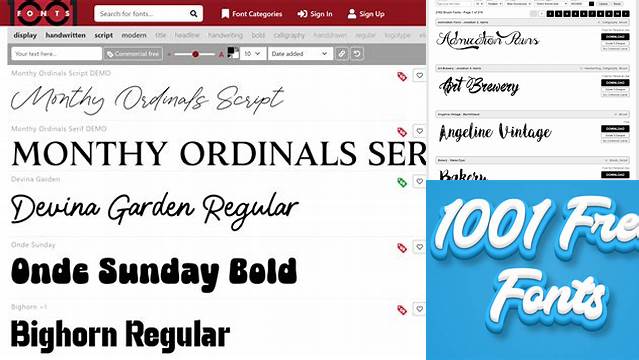
1001 Fonts Vs DaFont: Which Font Site Is Best?
Hey guys! Ever found yourself in a creative rut, staring blankly at your screen, desperately searching for that perfect font? We've all been there. Typography is crucial in design, whether you're crafting a stunning website, designing eye-catching marketing materials, or just making your social media posts pop. Choosing the right font can make all the difference, conveying the right mood, tone, and message. That's why having access to a vast library of fonts is a game-changer for any designer or creative. Two names that often come up in the free font universe are 1001 Fonts and DaFont. Both are treasure troves of typefaces, but which one reigns supreme? Let's dive in and explore these platforms, comparing their strengths, weaknesses, and overall user experience to help you find your next font obsession.
What are 1001 Fonts and DaFont?
Before we get into the nitty-gritty, let's take a quick look at what 1001 Fonts and DaFont actually are. Think of them as giant online libraries dedicated to fonts. 1001 Fonts, as the name suggests, boasts a massive collection of typefaces, ranging from classic serifs and sans-serifs to playful display fonts and handwritten scripts. They aim to be a comprehensive resource for designers of all levels, offering both free and commercial fonts. DaFont, on the other hand, is a long-standing favorite in the design community, known for its extensive selection of user-submitted fonts. This means you'll find a wider variety of quirky, unique, and sometimes downright bizarre fonts that you might not find anywhere else. Both platforms operate on a freemium model, offering a large selection of fonts for free, often with options to purchase commercial licenses for certain fonts or families. The interface of both sites is designed to be fairly straightforward, with search and filter options to help you navigate the vast collection. However, the sheer volume of fonts can sometimes feel overwhelming, so knowing how to effectively use their search tools is key. It's like walking into a library with millions of books – exciting, but potentially a little daunting!
Navigating the Font Jungle: User Experience
Okay, so both 1001 Fonts and DaFont have a ton of fonts. Great! But how easy are they to actually use? This is where user experience (UX) comes into play. A well-designed website can make all the difference in how smoothly you find what you're looking for. Let's break down the UX of each platform. 1001 Fonts generally has a cleaner and more modern interface. The search bar is prominently displayed, and the font categories are clearly organized. You can easily filter fonts by style, weight, width, and even specific features like rounded corners or fixed width. This granular filtering is a huge help when you have a specific vision in mind. They also offer a handy preview tool that lets you type in your own text to see how the font will look in action. DaFont, while being a classic, has a slightly more dated interface. It's functional, but it can feel a little cluttered and overwhelming at first glance. The categories are listed on the left-hand side, and while they are extensive, the sheer number of options can be a bit dizzying. DaFont's search filters are less refined than 1001 Fonts, making it a bit harder to narrow down your search. However, one thing DaFont does really well is its preview functionality. It allows you to preview your text in various sizes and even customize the background color, which can be super helpful. Ultimately, the best UX is subjective and depends on your personal preferences. If you prefer a clean and modern feel with robust filtering options, 1001 Fonts might be your go-to. If you don't mind a slightly more cluttered interface and prioritize a vast selection with a focus on unique, user-submitted fonts, DaFont might be more your style.
Font Selection: Quantity vs. Quality
Now for the million-dollar question: which platform has the better font selection? This isn't just about quantity; it's about the quality, variety, and licensing options available. Both 1001 Fonts and DaFont boast impressive numbers when it comes to font count. 1001 Fonts prides itself on curating a collection of both free and commercial fonts, aiming for a balance between quantity and quality. You'll find a solid selection of professional-grade fonts, as well as plenty of fun and quirky options. They also offer a good range of language support, which is crucial for international projects. DaFont, with its user-submitted nature, has a massive library, potentially larger than 1001 Fonts. You'll find a wider range of unique and unusual fonts on DaFont, including handwritten scripts, dingbats, and fonts inspired by pop culture. However, the quality can be more variable. Because anyone can upload a font to DaFont, you'll encounter some gems alongside some less polished creations. This isn't necessarily a bad thing; it's part of DaFont's charm. But it does mean you need to be a bit more discerning in your search. Licensing is another key consideration. Both platforms offer fonts under various licenses, ranging from personal use to commercial use. It's crucial to check the license for each font before using it in your project to avoid any legal issues. 1001 Fonts typically provides clear licensing information, making it easier to understand the terms of use. DaFont also provides licensing information, but it can sometimes be less consistent or require a bit more digging to find. In short, 1001 Fonts generally offers a more curated selection with a focus on quality and clear licensing, while DaFont provides a vast, eclectic mix of fonts with varying quality and licensing terms. Your choice will depend on your specific needs and project requirements.
Finding Your Perfect Match: Search and Filter Functionality
Imagine walking into a library with millions of books but no card catalog. Nightmare, right? The same applies to font websites. Having robust search and filter functionality is crucial for navigating a massive font library like those offered by 1001 Fonts and DaFont. Let's see how each platform stacks up in this department. 1001 Fonts shines when it comes to search and filtering. Their search bar is prominent and easy to use, allowing you to search by font name, keyword, or even designer. The filter options are incredibly detailed, allowing you to narrow down your search by style (serif, sans-serif, script, etc.), weight (bold, light, etc.), width (condensed, expanded, etc.), and even specific features like rounded corners, fixed width, or multilingual support. This granular control is a huge time-saver when you have a specific font style in mind. They also offer a visual search feature, where you can upload an image of a font and the site will attempt to identify it or suggest similar fonts. This is a fantastic tool for finding fonts that match your existing branding or design inspiration. DaFont's search functionality is more basic but still functional. You can search by font name or keyword, and they offer categories and subcategories to browse. However, their filter options are less extensive than 1001 Fonts. You can filter by style, but the options are more limited, and there are fewer controls for weight, width, and other features. While DaFont's search isn't as powerful, it does have a unique feature: the ability to search for fonts that are similar to a specific font. This can be helpful for finding variations on a style you like. In conclusion, 1001 Fonts offers a more refined and powerful search experience with its detailed filter options and visual search feature, while DaFont provides a more straightforward search with a unique similarity search feature. The best option for you will depend on your specific needs and how you prefer to search for fonts.
The Verdict: 1001 Fonts vs. DaFont – Which Reigns Supreme?
So, after our deep dive into the world of 1001 Fonts and DaFont, which platform comes out on top? The truth is, there's no single "winner." Both platforms offer unique strengths and cater to different needs. It really depends on what you're looking for in a font resource. If you value a clean, modern interface, robust search filters, and a curated selection of high-quality fonts, 1001 Fonts is a fantastic choice. They offer a good balance of free and commercial fonts, with clear licensing information and a user-friendly experience. Their granular filtering options are a godsend when you have a specific font style in mind. DaFont, on the other hand, is the go-to destination for those seeking a vast, eclectic collection of unique and sometimes quirky fonts. The user-submitted nature of the platform means you'll find a wider range of styles and designs that you might not find anywhere else. However, the quality can be more variable, and the search filters are less refined. DaFont is a great place to explore and discover hidden gems, but you'll need to be a bit more discerning in your search. Ultimately, the best approach is to use both platforms! Explore 1001 Fonts for professional-grade fonts and efficient searching, and dive into DaFont for unique and unconventional designs. By leveraging the strengths of both platforms, you'll have access to an incredible range of typography options for all your creative projects. So, go forth and conquer the font world, guys! Your perfect typeface is out there waiting to be discovered.